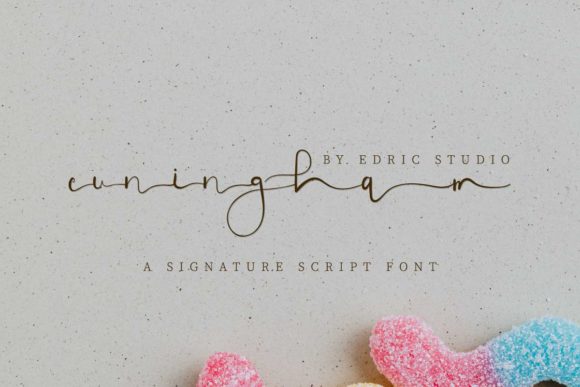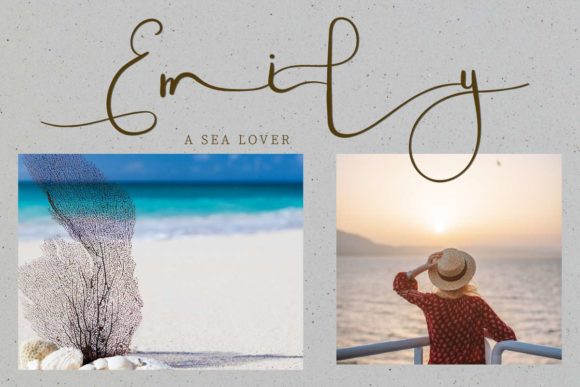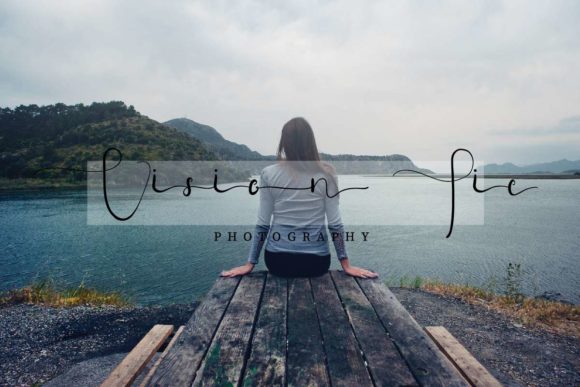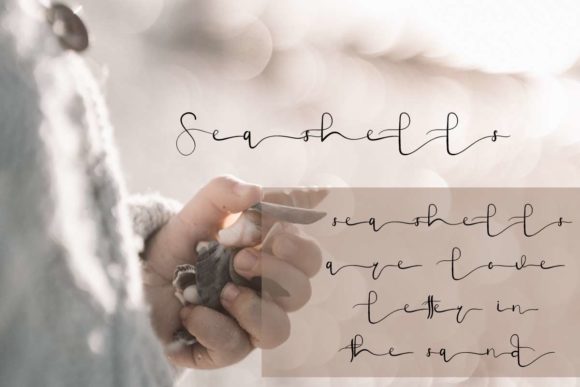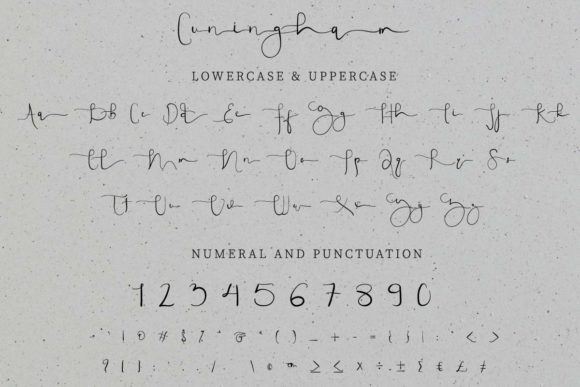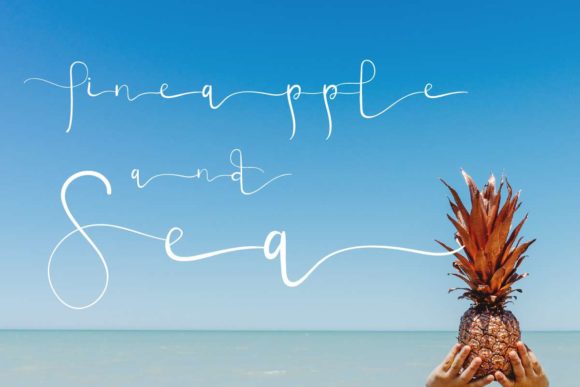
Introduction to Cuningham Font
Have you ever found yourself staring at a blank page, struggling to bring your creative vision to life? For designers, this is a moment we all know too well. But what if I told you that the perfect design resource is just a click away? Enter the Cuningham Font, a delicate and elegant handwritten font that has been transforming creative projects for designers worldwide.
With its beautiful and well-balanced characters, the Cuningham Font is a versatile design tool that can elevate any project from simple to sophisticated. Whether you’re working on a branding project, a wedding invitation, or a social media campaign, this font is sure to make your design come alive. And the best part? It’s a high-quality, free download that can be used on any transparent background, giving you the flexibility to experiment with different designs and styles.
Key Features of Cuningham Font
- High-quality font design with a transparent background, ideal for creative projects that require a clean and minimalist aesthetic.
- Perfect design resource for graphic designers, UI/UX designers, and digital artists looking for a unique and stylish font to enhance their creative projects.
- Features a modern and sleek design, with a wide range of applications in branding, advertising, and digital media.
- Includes a range of font sizes and resolutions, ensuring that it can be used effectively in various design contexts, from small-scale text to large-scale headings.
- Unique characteristics include its clean lines, simple shapes, and lack of clutter, making it an excellent choice for designers who want to create a sophisticated and professional look.
Honest Review: Cuningham Font
I recently stumbled upon the Cuningham Font while searching for a high-quality design resource for a creative project. The free download was a pleasant surprise, and I was excited to test it out.
- ✨ High-quality font with smooth lines and clean typography
- ✨ Transparent background makes it versatile for use on any color
- ✨ Excellent for body text and titles in creative projects
- ⚠️ Limited character set, may not be suitable for projects requiring extended characters
- ⚠️ May not be the best choice for formal or professional designs
Overall, I’m impressed with the Cuningham Font. It’s a great addition to any designer’s toolbox, and its free download makes it an excellent choice for creative projects. While it may have some limitations, its high-quality typography and versatility make it a valuable design resource.
Getting the Most Out of Cuningham Font
To get the most out of Cuningham Font, use it in combination with a transparent background and high-quality images. This will allow you to create visually appealing and professional-looking designs.
Cuningham Font is commonly used in creative projects such as logo design, typography, and graphic design. Its unique and elegant design makes it a popular choice among designers.